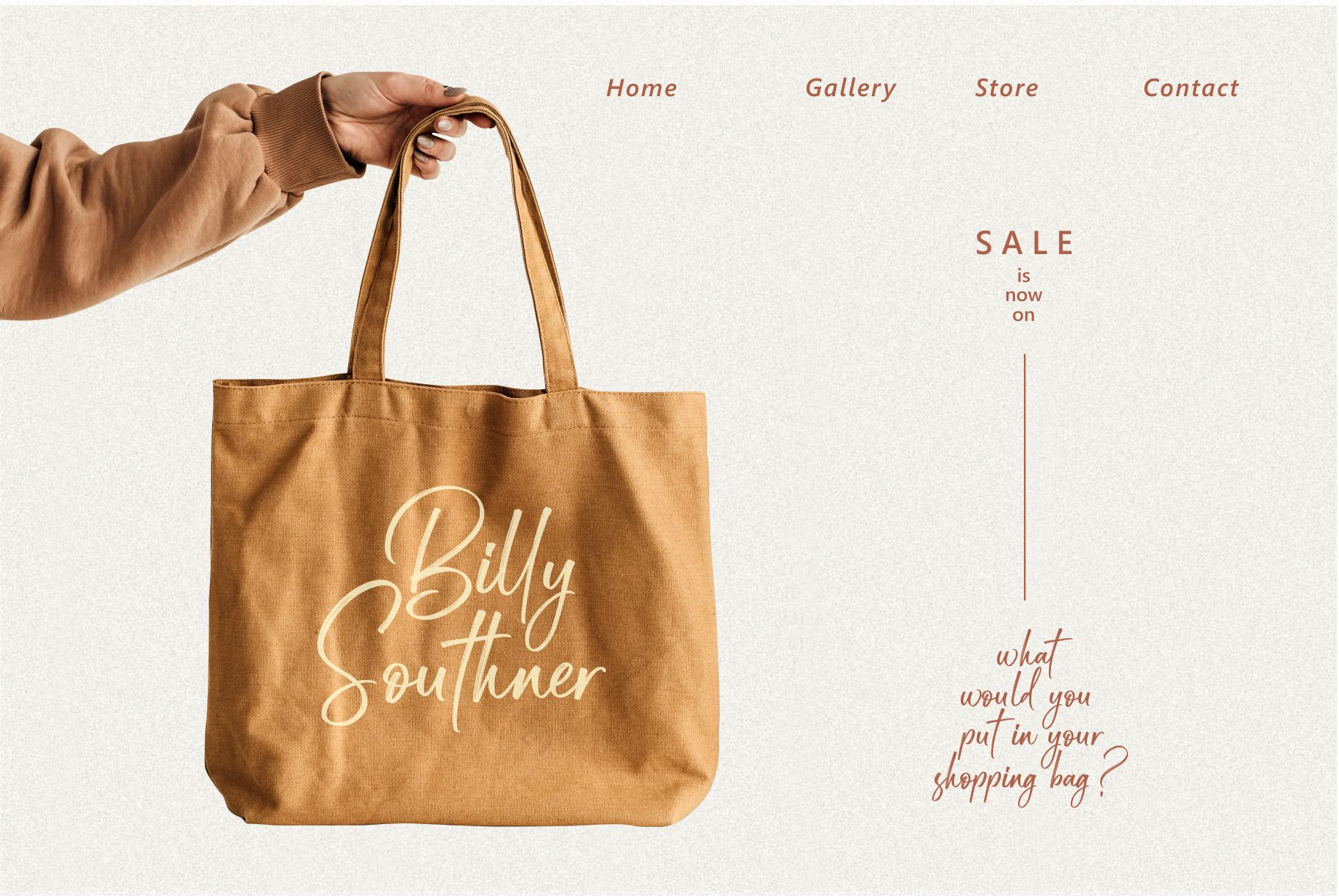
The Roughly Script Font
The Roughly Script Font feels equally charming and elegant. It looks stunning on wedding invitations, thank you cards, quotes, greeting cards, logos, business cards and every other design which needs a handwritten touch.
Introducing The Roughly
A modern and stylish handcrafted signature font that’ll make your audience swoon and enhance your projects. Every stroke and curve was created to capture the essence of modernity and style. This gorgeous and stylish font can be used for a host of different content needs and projects. Ideal for social media posts and ads, printed quotes, t-shirt designs, packaging, or even as a modern text overlay to any background image. The Roughly Handwritten Font includes Multilingual Options to make your branding globally acceptable.
• Standard Ligatures
• Stylistic Sets
• Numerals and Punctuation